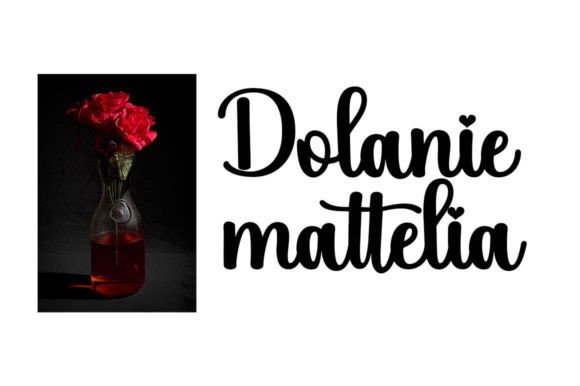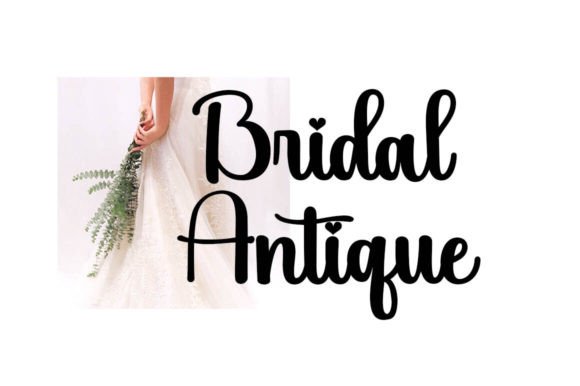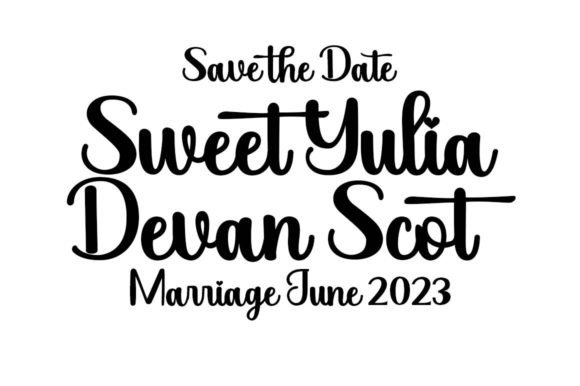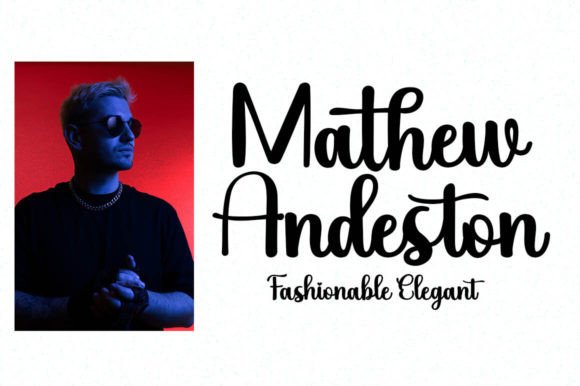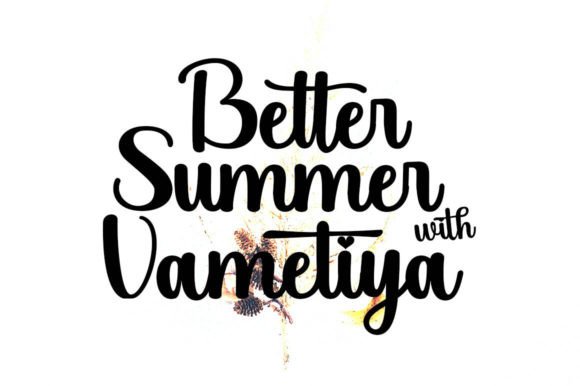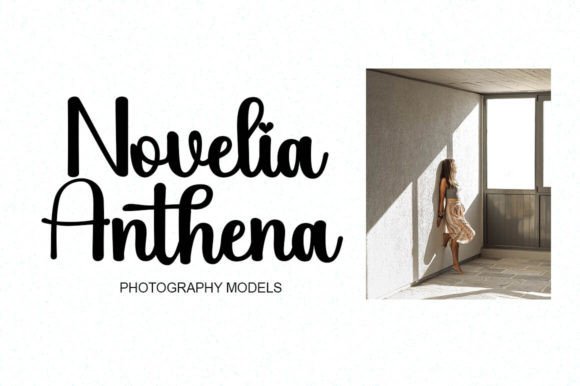
Introduction to Diontail Font
There’s nothing quite like the thrill of bringing a creative project to life, watching your ideas take shape and transform into something truly unique. For designers, this moment is a rush of excitement and satisfaction. And it all starts with the right design resources – a font that can make your message stand out, capture the essence of your brand, and leave a lasting impression.
That’s where the Diontail Font comes in – a stunning, high-quality handwritten font that’s perfect for creating eye-catching logos, branding, and quotes. Its unique, beautiful touch will breathe life into your designs, making them truly unforgettable. With its versatility and timeless appeal, the Diontail Font is an invaluable asset for any designer looking to elevate their work and take their creative projects to the next level.
Key Features of Diontail Font
- The Diontail Font is a unique and versatile design resource ideal for creative projects requiring high-quality typography.
- Features a high-resolution design, making it suitable for use in both print and digital applications.
- The font is available in two styles, with 6 weights (Thin, Light, Regular, Medium, Bold, Black) and 2 styles (Regular and Italic), providing ample options for creative expression.
- Diontail Font is designed to be highly legible, making it an excellent choice for body text, headings, and titles in various creative projects.
- The font’s unique characteristics and high-quality design make it an excellent addition to any designer’s toolkit, perfect for both personal and professional use.
Honest Review: Diontail Font
As a designer, I’m always on the lookout for high-quality design resources that can elevate my creative projects. Recently, I came across the Diontail Font, and I’m excited to share my honest review with you.
- ✨ Unique and elegant design style that’s perfect for creating a sophisticated look
- ✨ High-quality font that’s ideal for headings and titles in creative projects
- ✨ Transparent background, making it easy to use on any design surface
- ⚠️ Limited character set, which may not be ideal for long-form content
- ⚠️ Not suitable for body text, as it may be difficult to read in smaller sizes
Overall, I’m impressed with the Diontail Font. While it may have some limitations, its unique design style and high-quality rendering make it a valuable addition to any designer’s toolkit. If you’re looking for a font to add a touch of sophistication to your creative projects, I’d definitely recommend giving it a try.
Getting the Most Out of Diontail Font
To get the most out of the Diontail Font, use it with a transparent background to create a seamless design. This font is perfect for designers who want a high-quality design resource that can be used in a variety of creative projects.
The Diontail Font is commonly used in business cards, brochures, and other marketing materials. It’s also great for use in social media graphics, presentations, and other design projects where a high-quality font is needed.
Q: Is the Diontail Font suitable for high-resolution printing?
Yes, the Diontail Font is designed to be high-quality and suitable for high-resolution printing. With its clear and legible design, it’s perfect for a wide range of printing applications, from business cards to posters and more. The font’s transparent background also makes it ideal for use with backgrounds and textures.